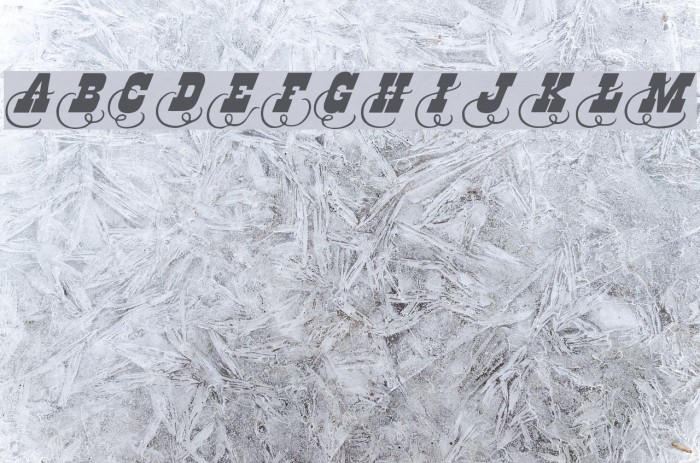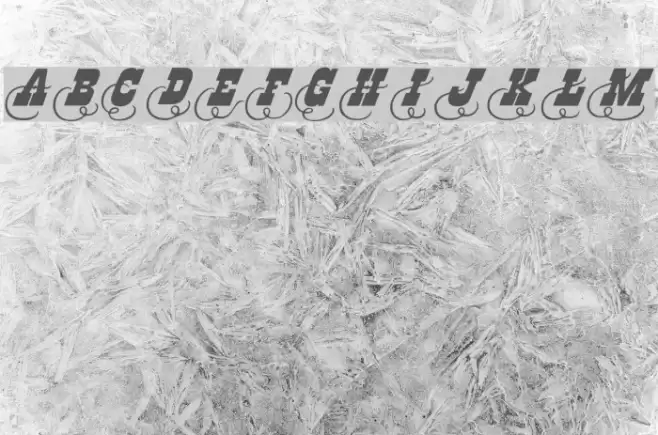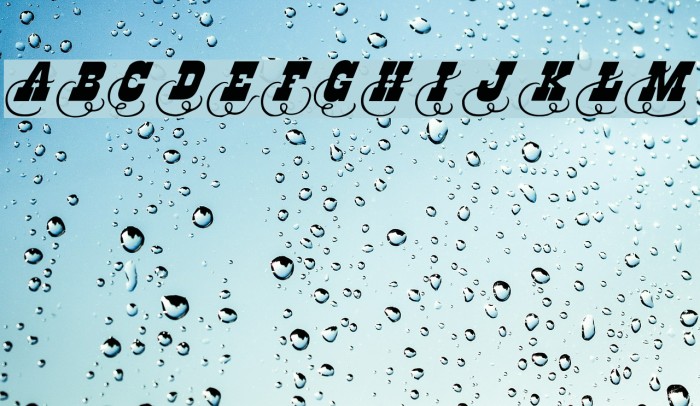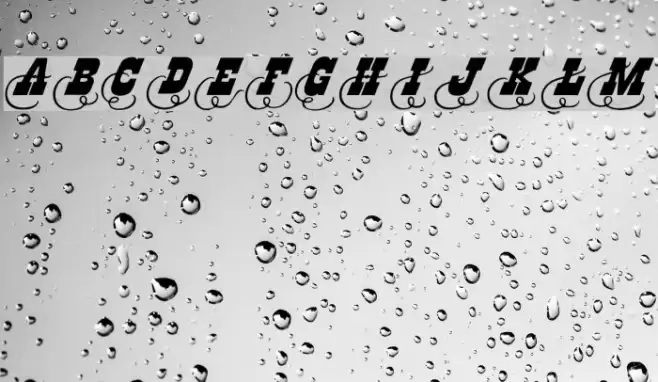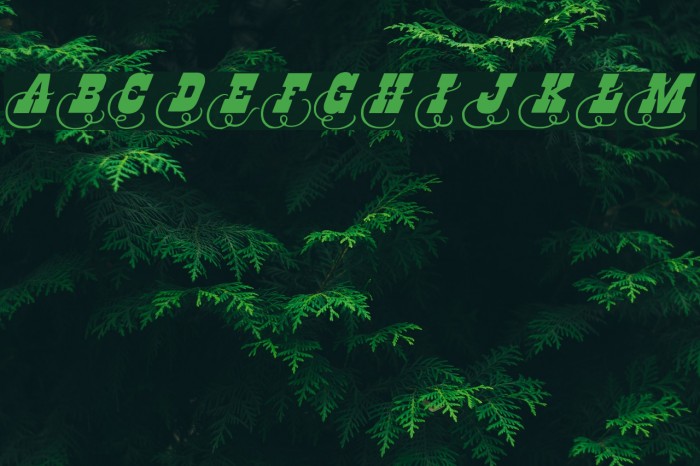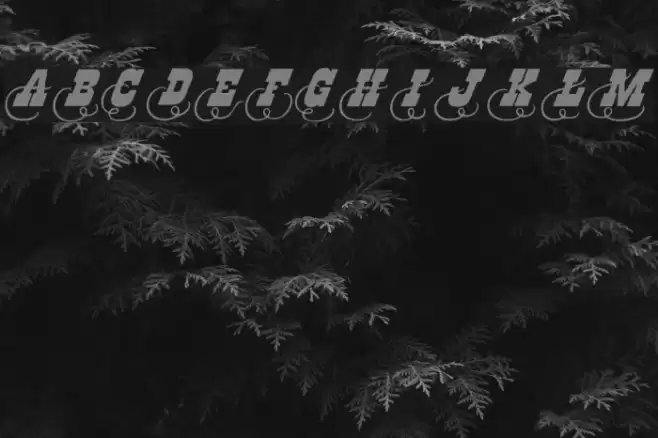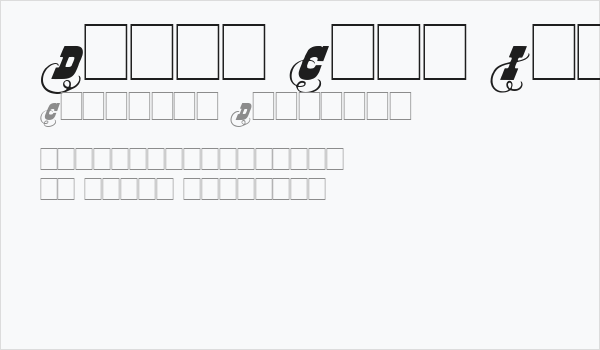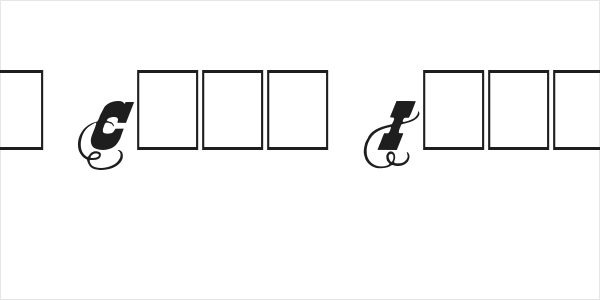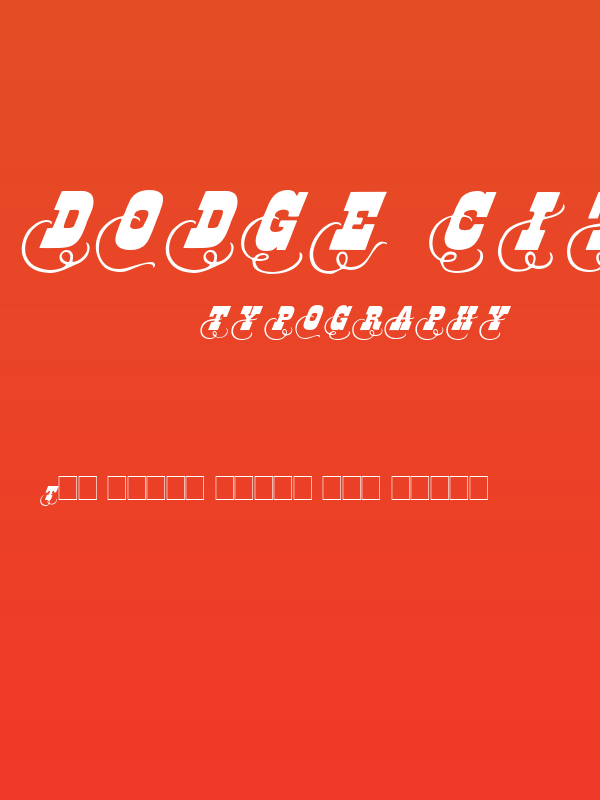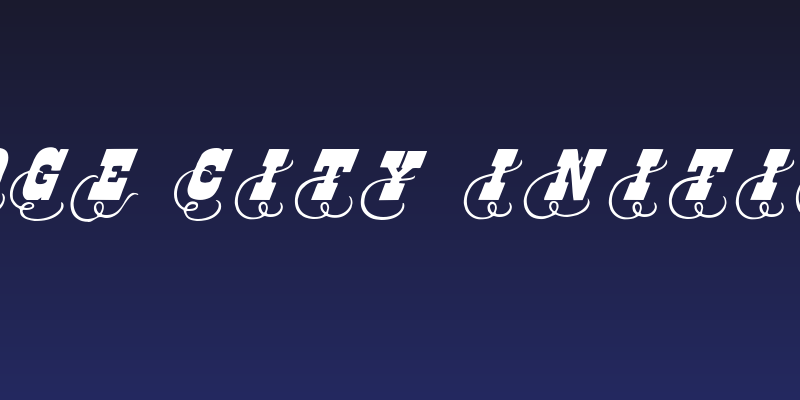
Dodge City Initials Font
Dodge City Initials Description
This font features a bold, decorative style with intricate swirls and flourishes extending from each letter, giving it a distinctly ornate and vintage appearance. The uppercase letters are designed with a strong presence, characterized by thick strokes and high contrast between thick and thin lines. The embellishments add a touch of elegance and sophistication, making it suitable for projects that require a classic and decorative touch. The font's unique style is reminiscent of old Western or Victorian-era typography, often used in signage or branding to evoke a sense of nostalgia and grandeur.
Overall StyleVintage
Proposed ProjectsIdeal for vintage-themed posters, signage, branding, and decorative invitations.